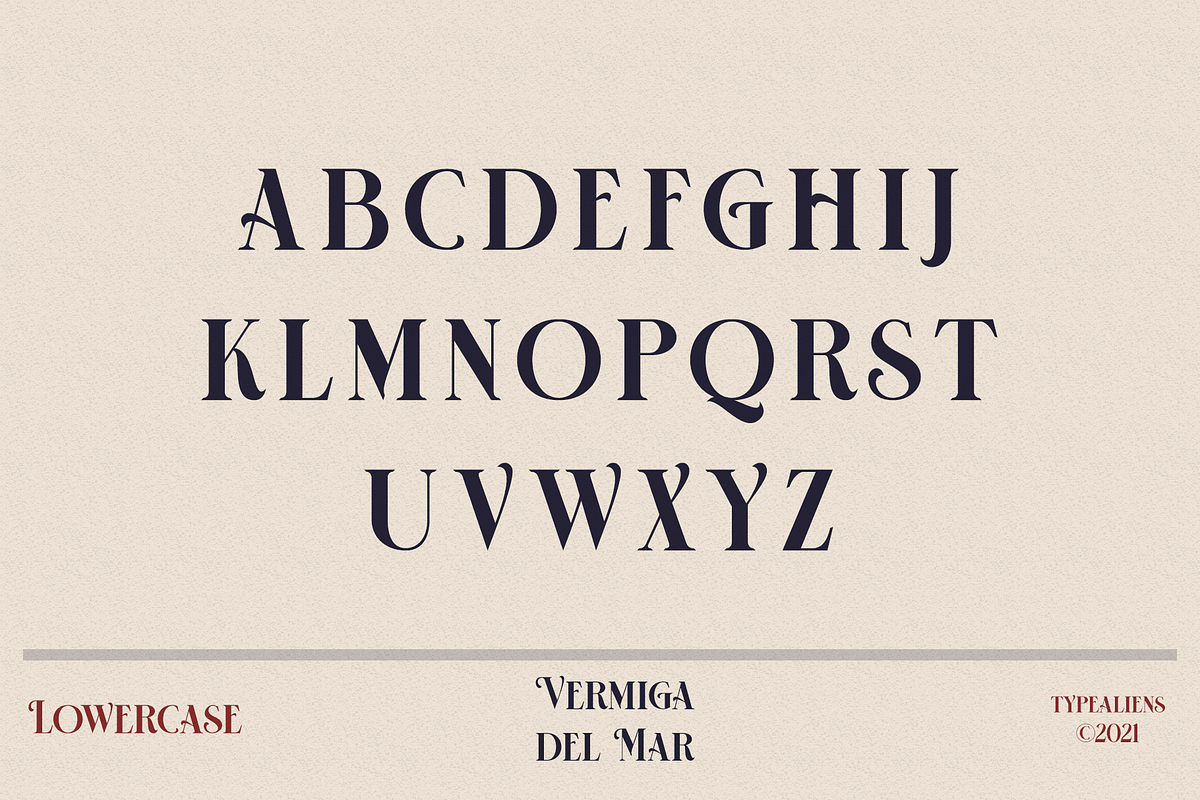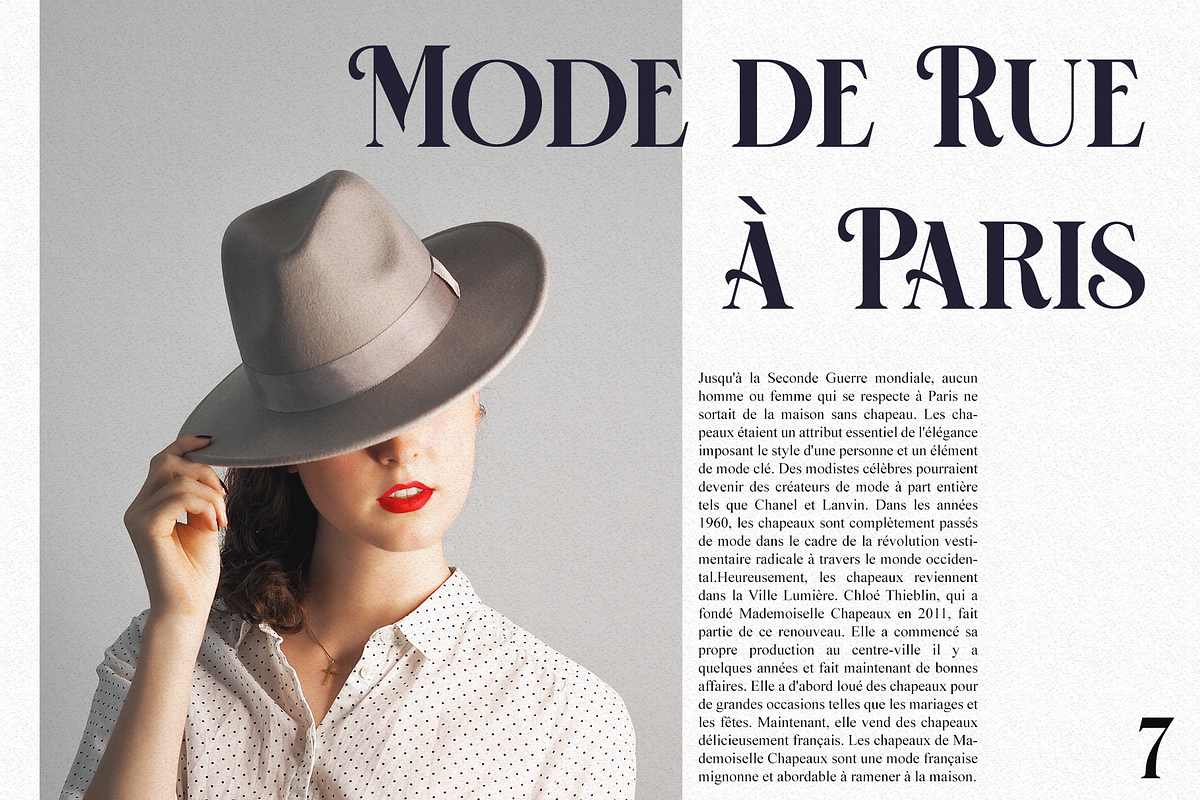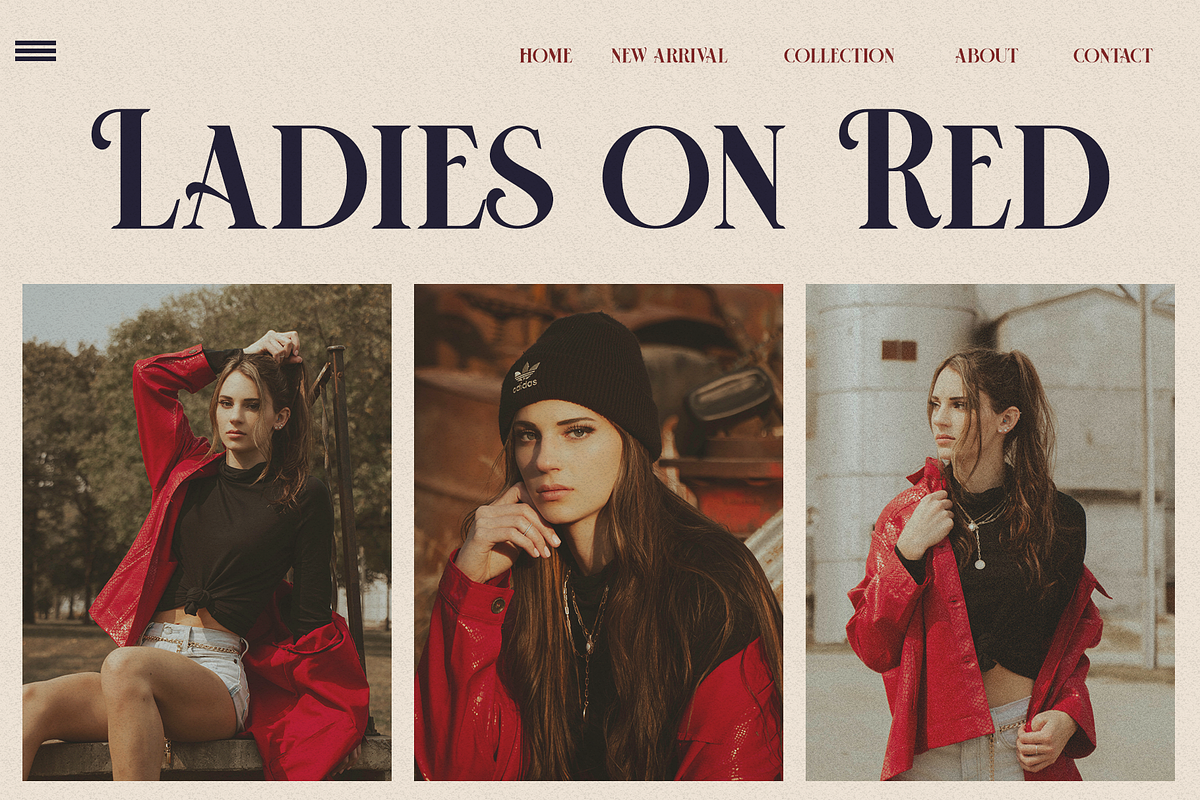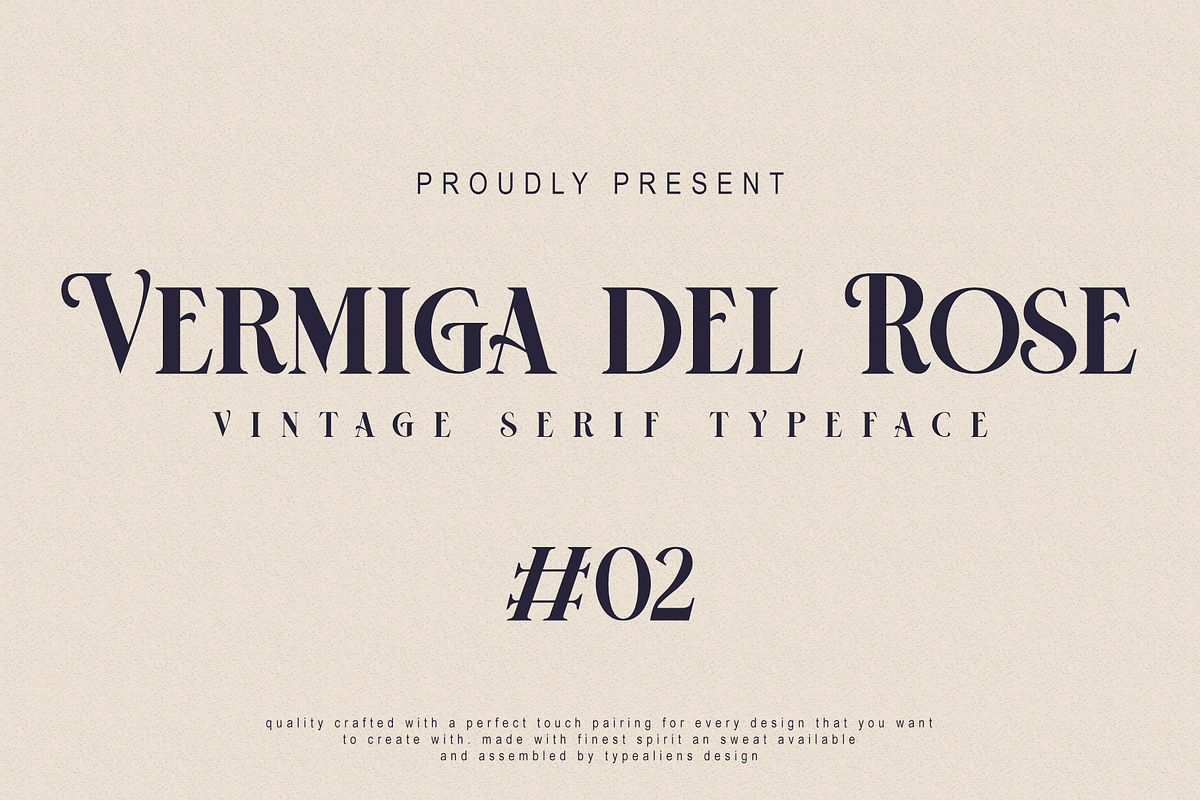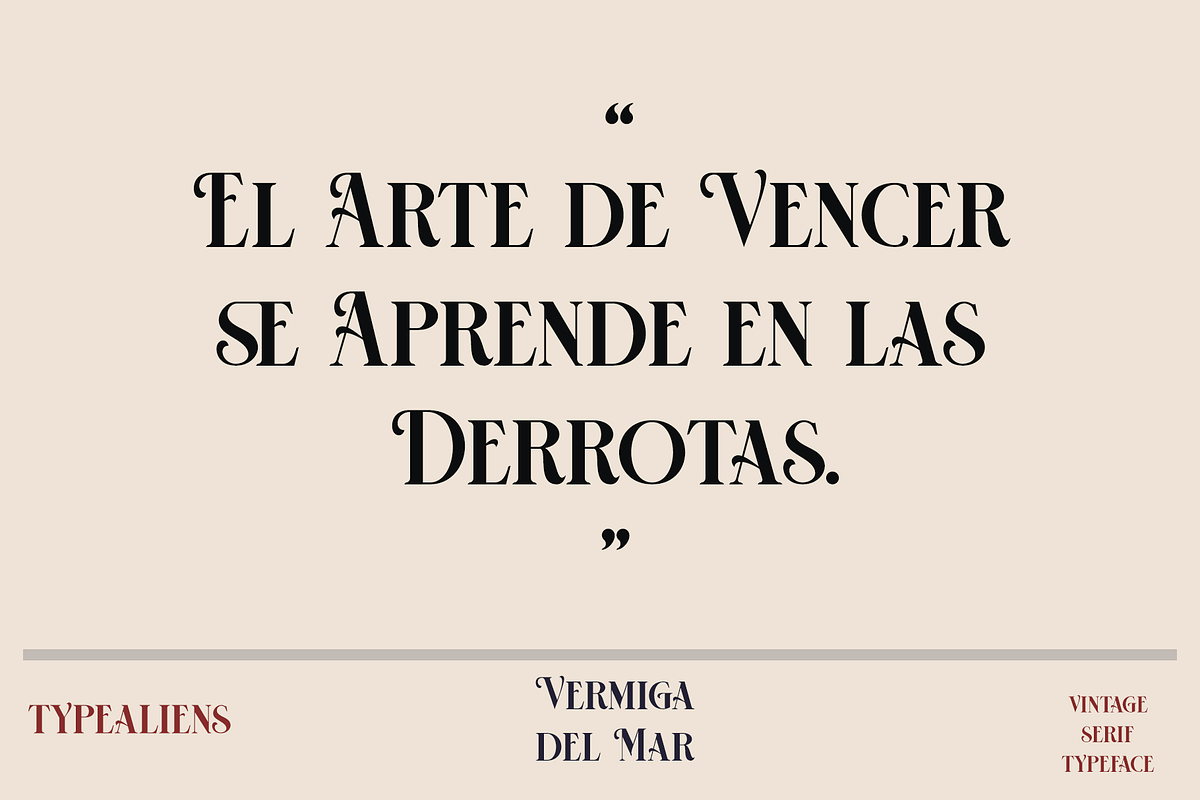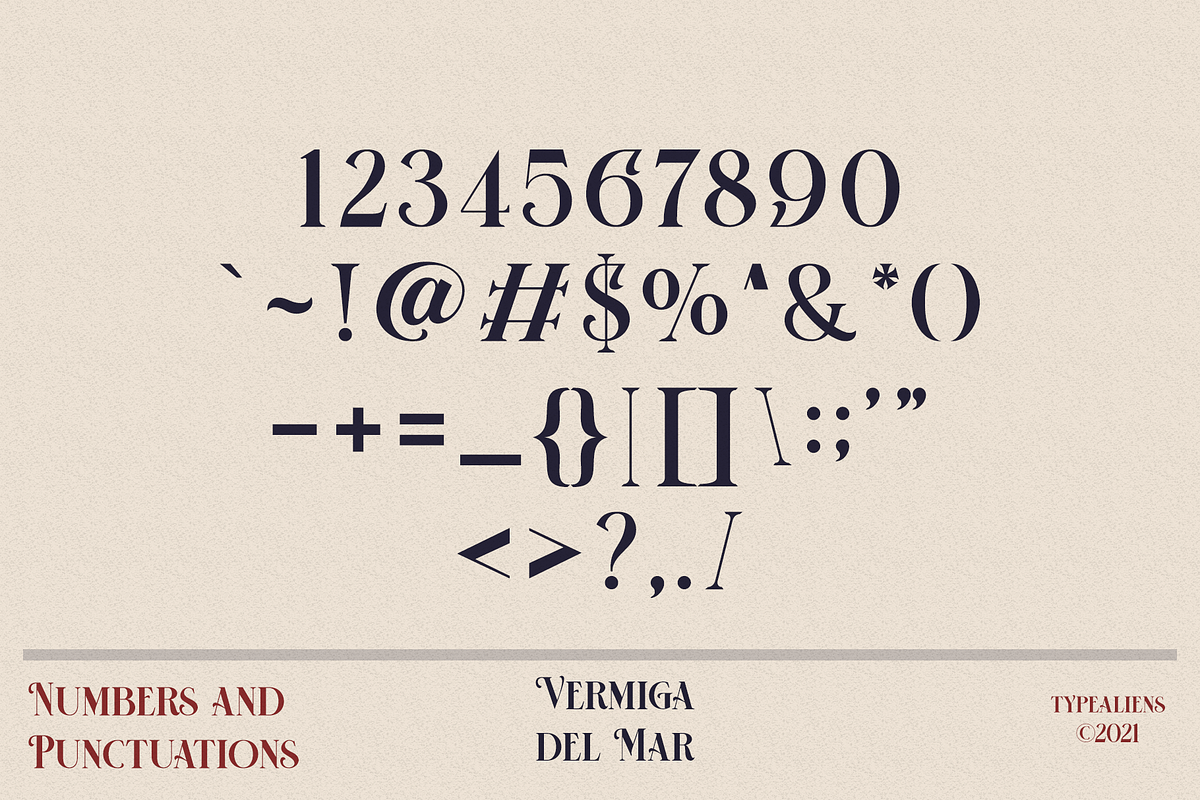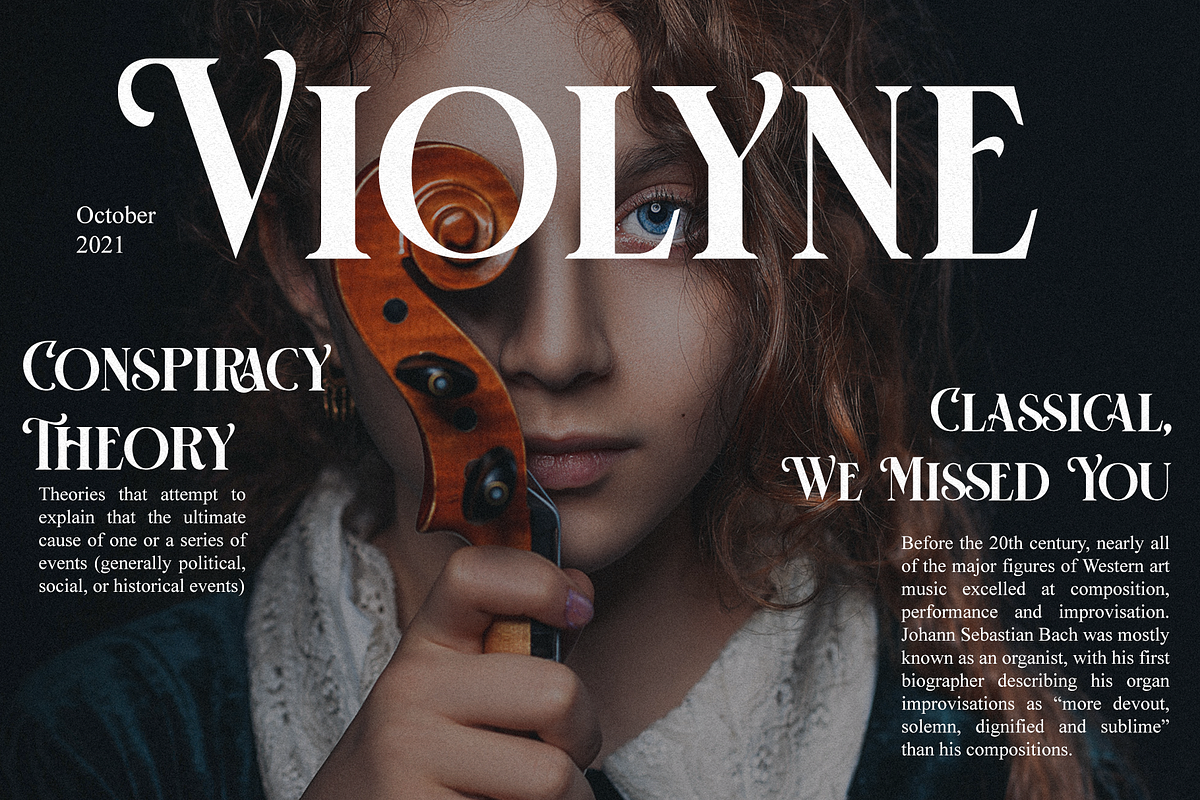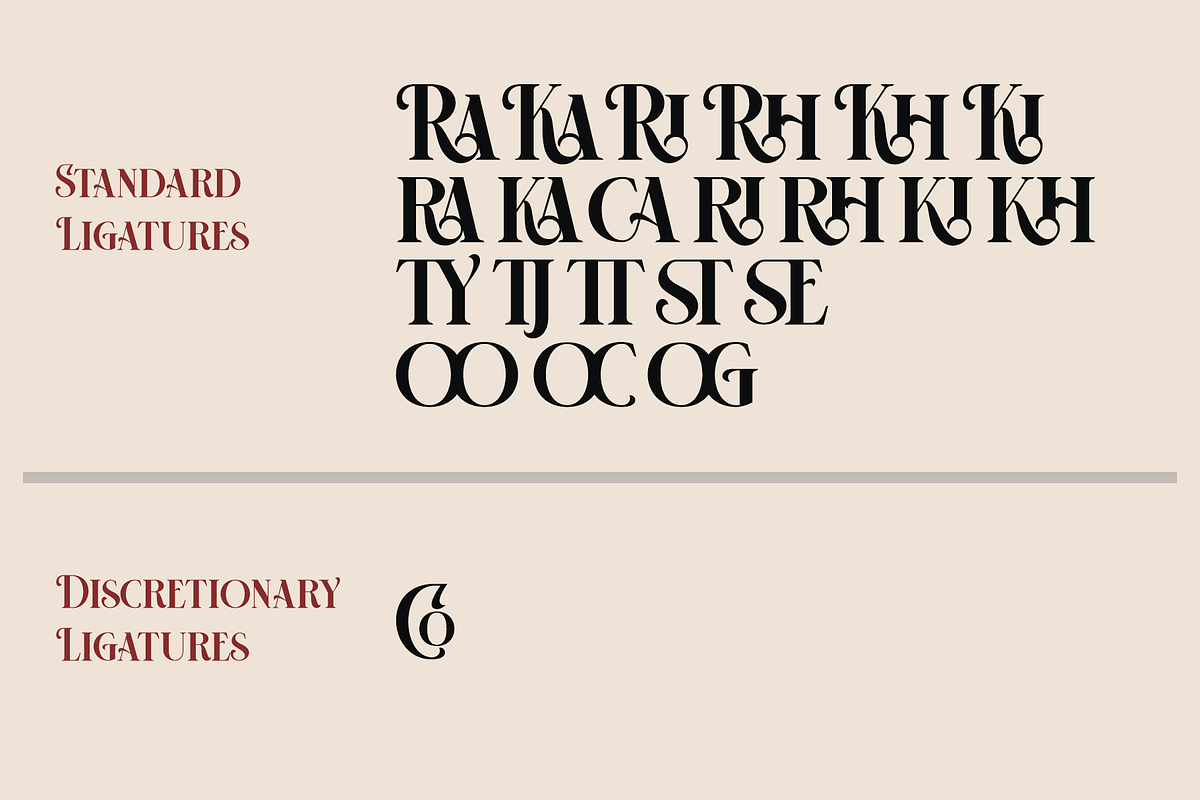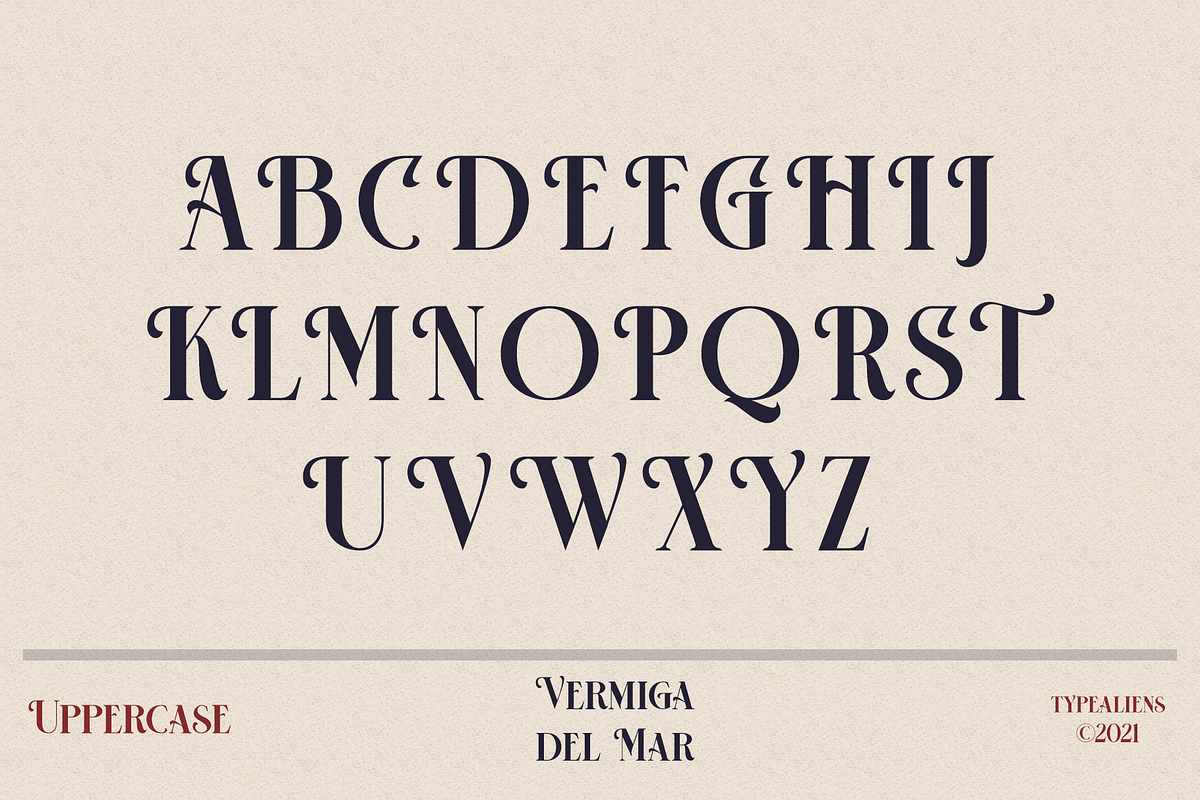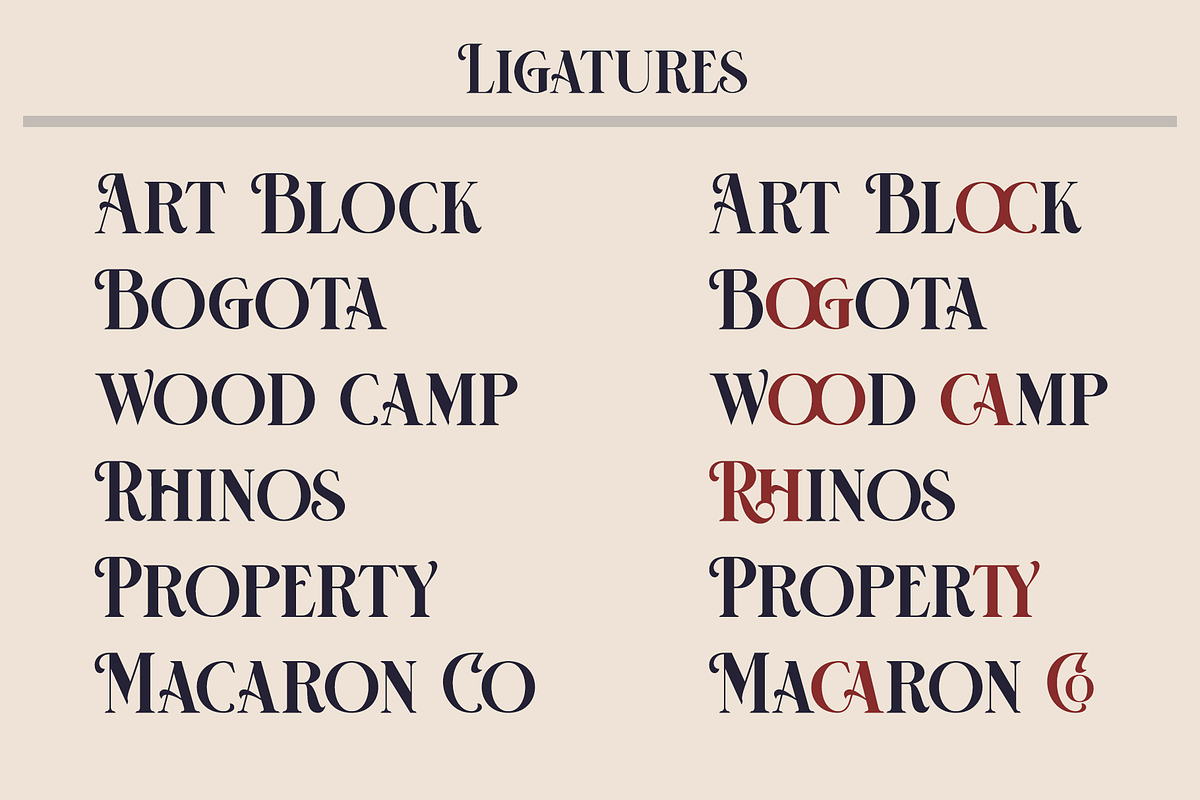
HST - Vermiga del Rose
VERMIGA DEL ROSE
Vermiga del Rose is an elegant, simple and clean font. Great for headlines, this font is actually a vintage font but it's also perfect for a slightly modern, formal design. It has some interesting ligatures to add a cool feel to your designs.